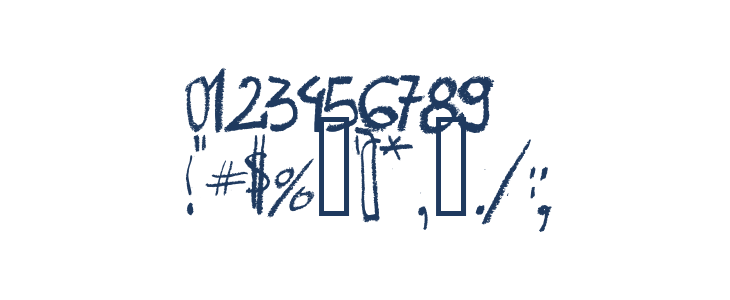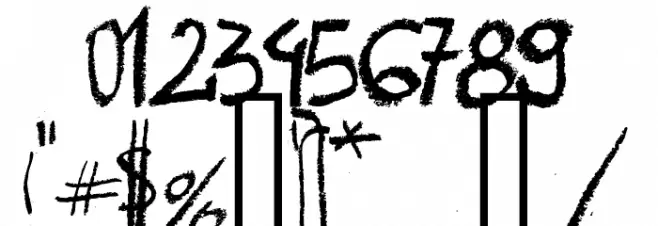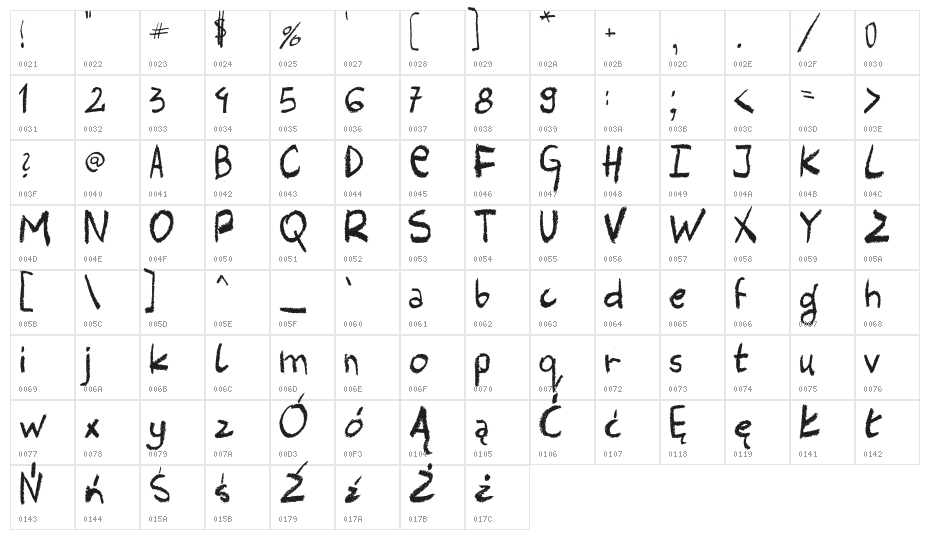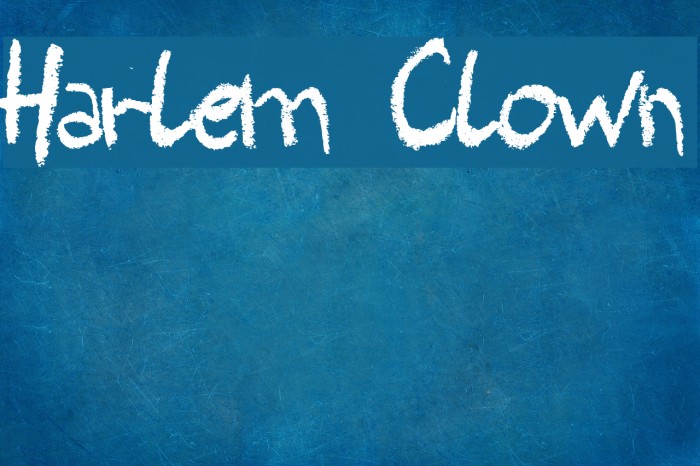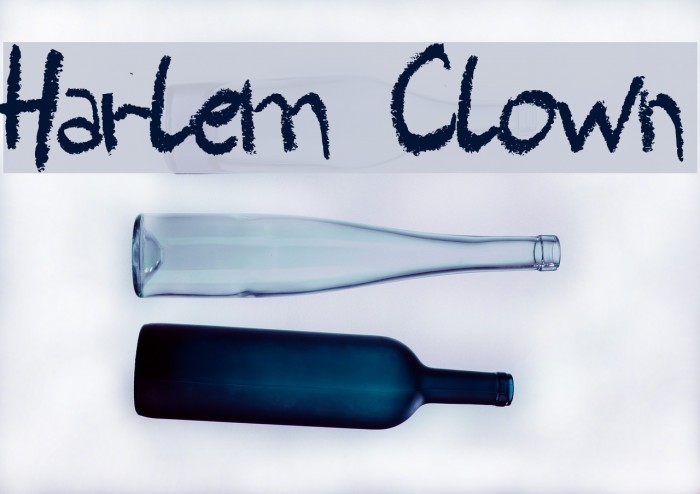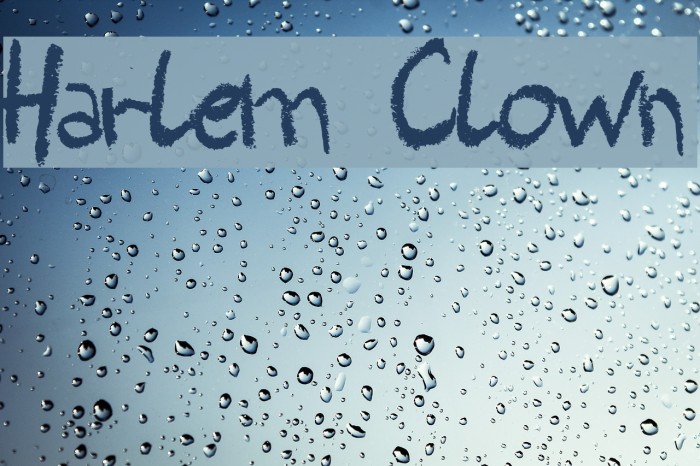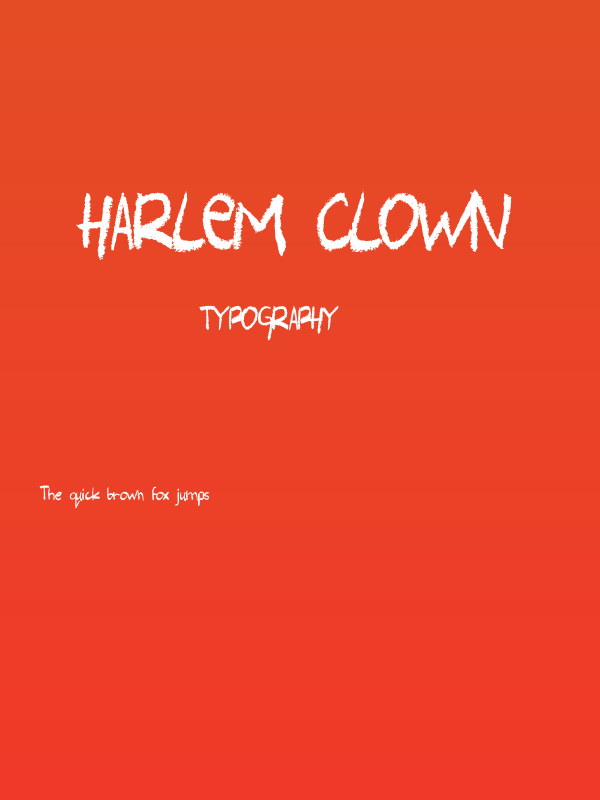
Harlem Clown Font
Harlem Clown Description
This font exudes a playful and artistic vibe, characterized by its hand-drawn, textured appearance. The letters are uneven and slightly irregular, giving it a whimsical and casual feel. The strokes are bold and rough, resembling chalk or crayon, which adds to its unique, creative style. The uppercase and lowercase letters maintain a consistent style, with a noticeable tilt and varying stroke thickness that adds to its dynamic look. Numbers and special characters follow the same artistic approach, making the font suitable for projects that require a touch of creativity and informality.
Proposed ProjectsIdeal for children's book covers, creative posters, playful branding, and artistic event invitations.